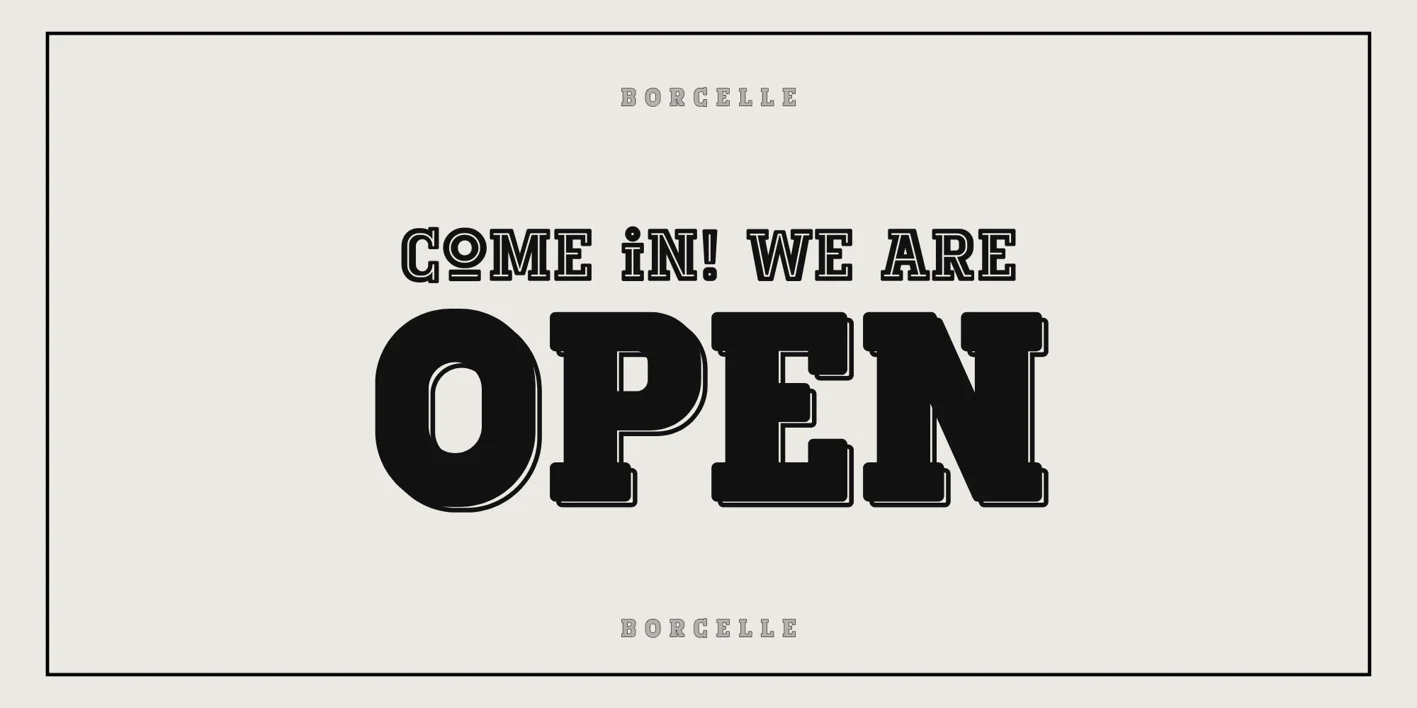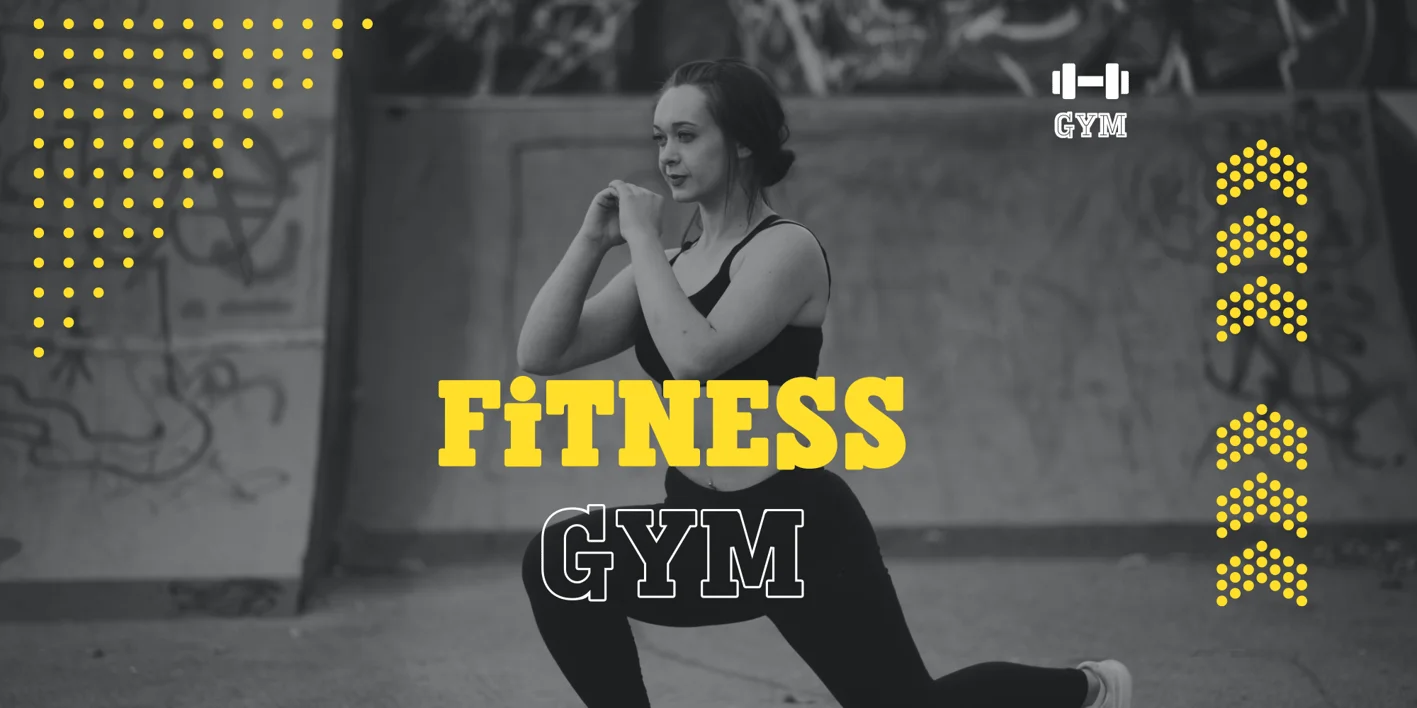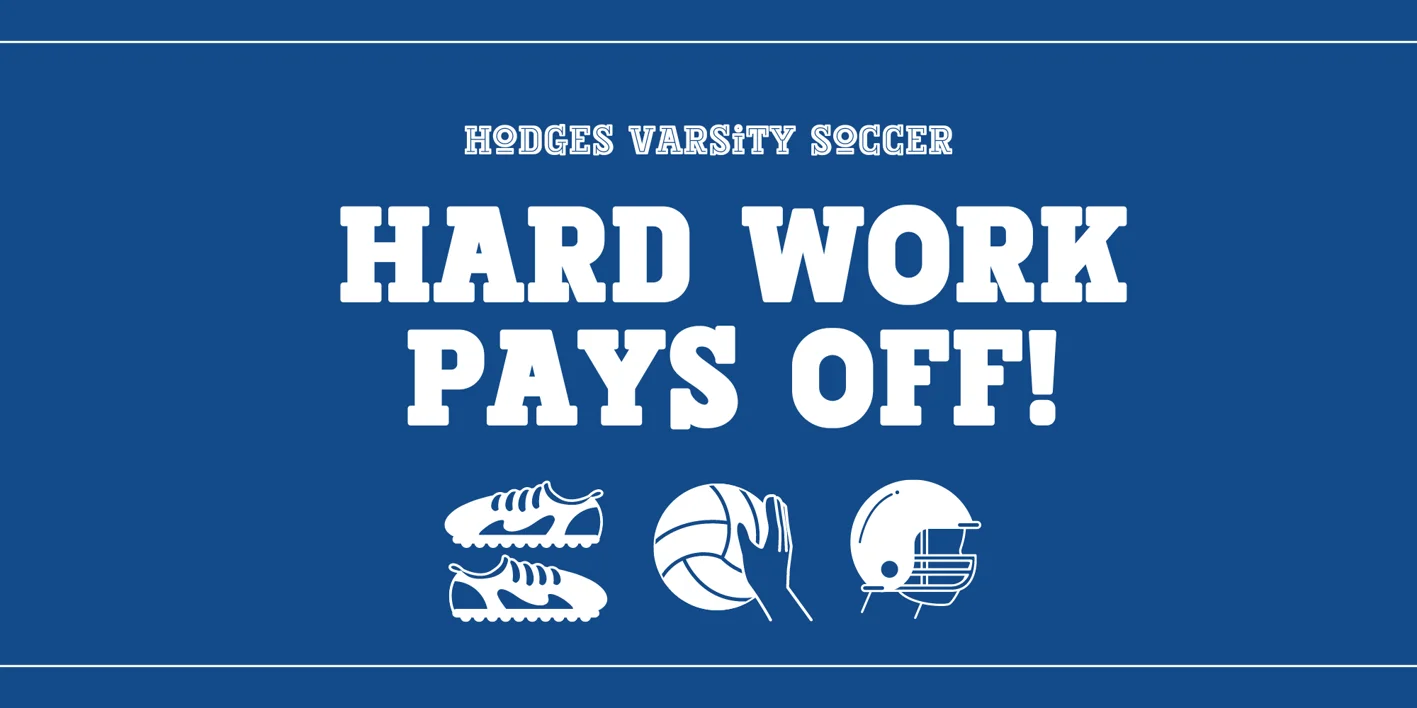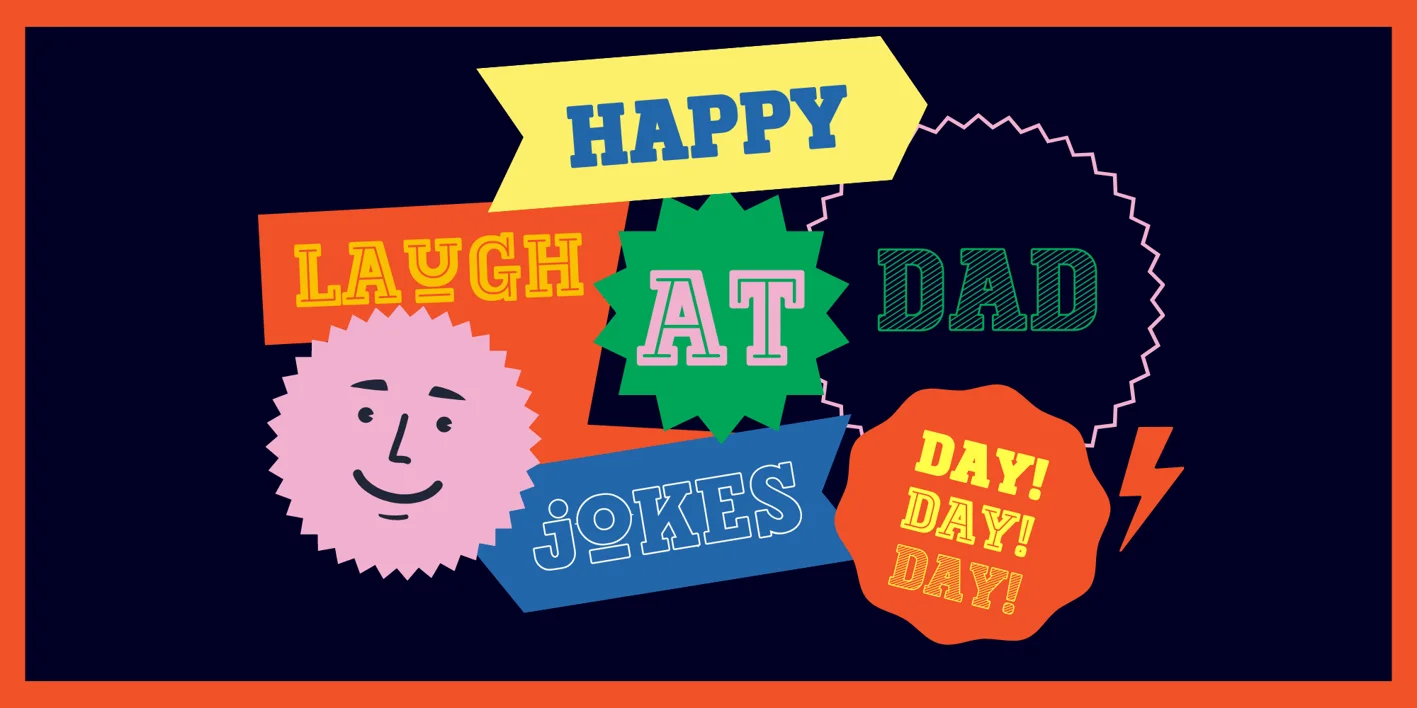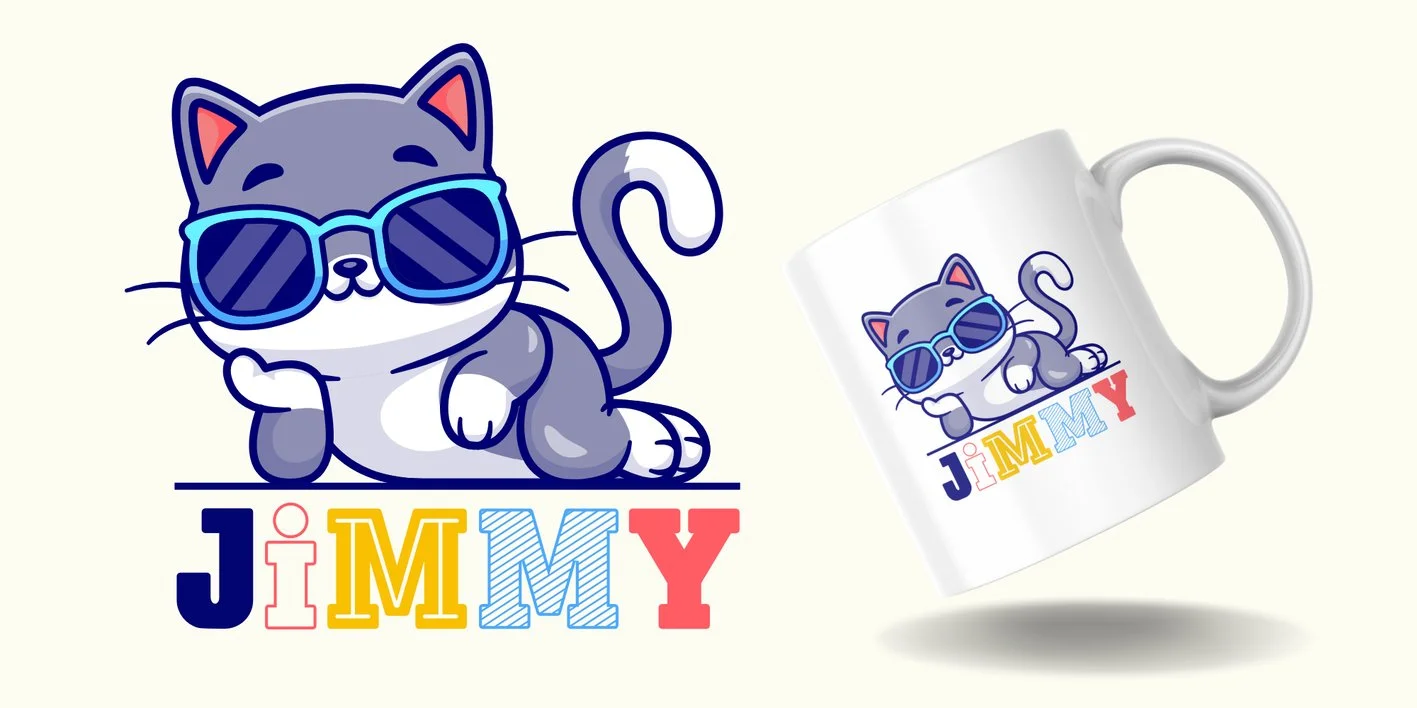
Fox Boating Strokes Font
Typography shapes perception at a subconscious level. Fox Boating Strokes leverages refined proportions and careful stroke modulation to make every composition feel considered. The typeface brings a versatile sensibility to a broad range of creative disciplines, with a confident voice that adapts to diverse briefs that holds up whether the work is print-first or screen-first.
In practice, Fox Boating Strokes proves particularly effective for poster creation, annual reports, web design, logo design, brand identity systems. Designers reaching for it find that the type decisions feel resolved rather than laboured — a useful quality when client timelines are tight.
The range of applications extends to product labels, social media graphics, packaging design, advertising campaigns. That breadth is deliberate: the proportions and spacing were stress-tested across a wide range of mock briefs before the typeface was finalised.
At smaller sizes the design retains its character without becoming cluttered. This resilience across scales makes Fox Boating Strokes equally suitable for a business card and a billboard — a useful property when assets must scale across a campaign.
Independent studios handling packaging and editorial work find Fox Boating Strokes a reliable choice for projects that demand both personality and restraint. The design avoids the self-conscious quirkiness that dates quickly, settling instead for considered distinctiveness that holds up over time.